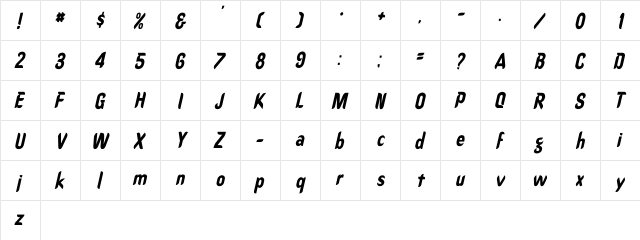
OregonDry Th Italic Italic
Design Context for OregonDry Th Italic Typeface
OregonDry Th Italic offers clean, dependable letterforms without strong stylistic allegiance, making it a practical choice for designers who need flexibility. The dynamic lean of this cut emphasises speed and emphasis in any layout.
Pro Tip: Try OregonDry Th Italic for annotation and caption copy alongside an upright companion — the contrast in angle creates a dynamic but ordered typographic system.